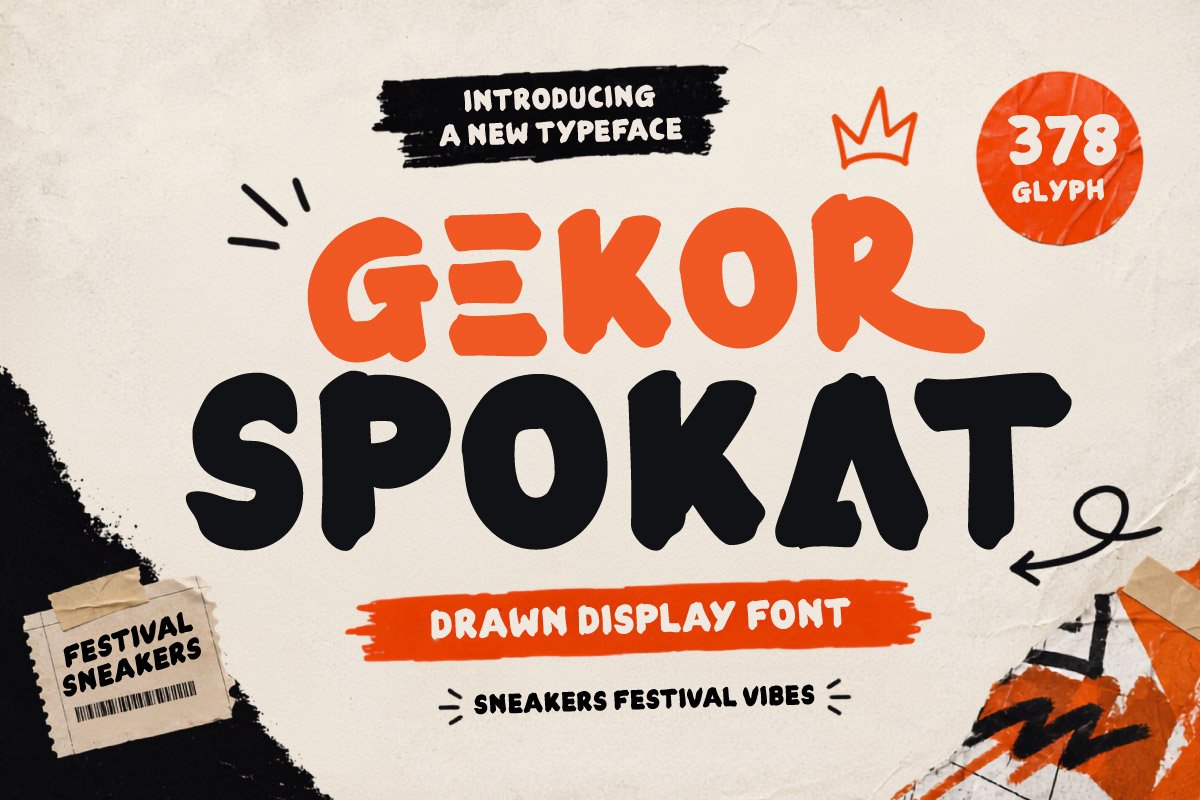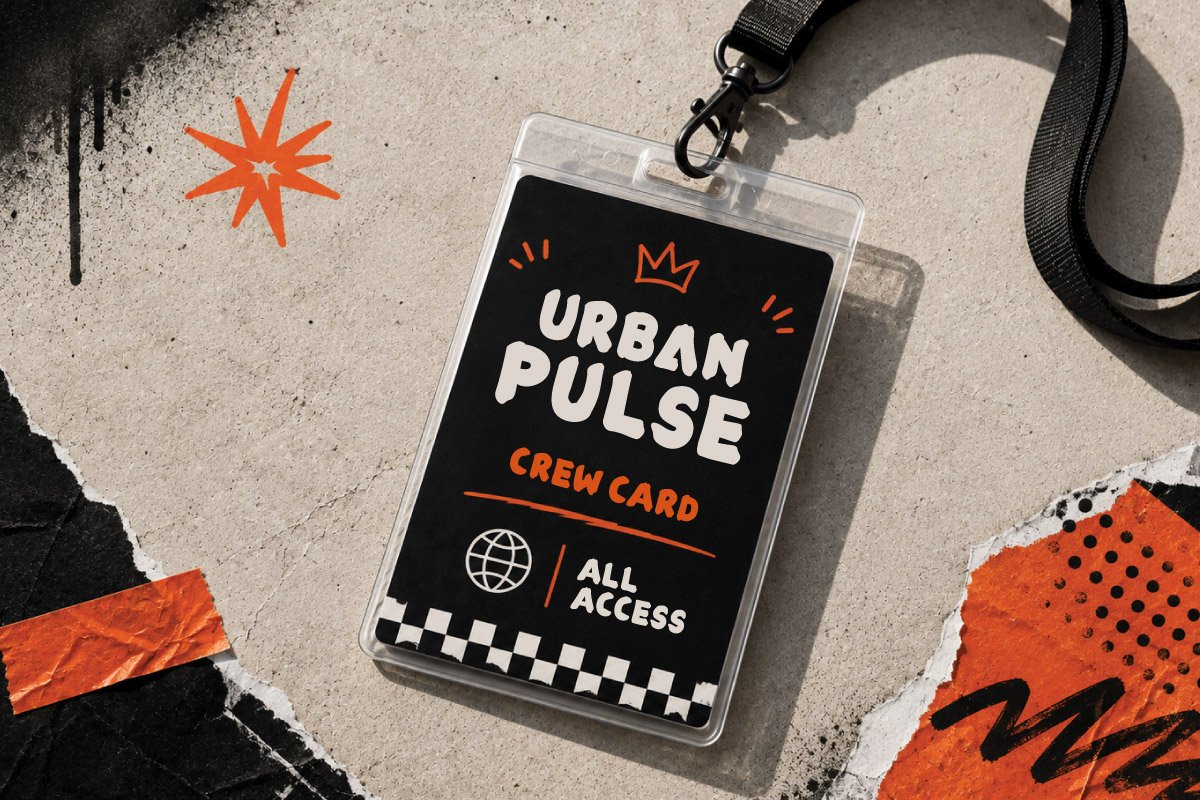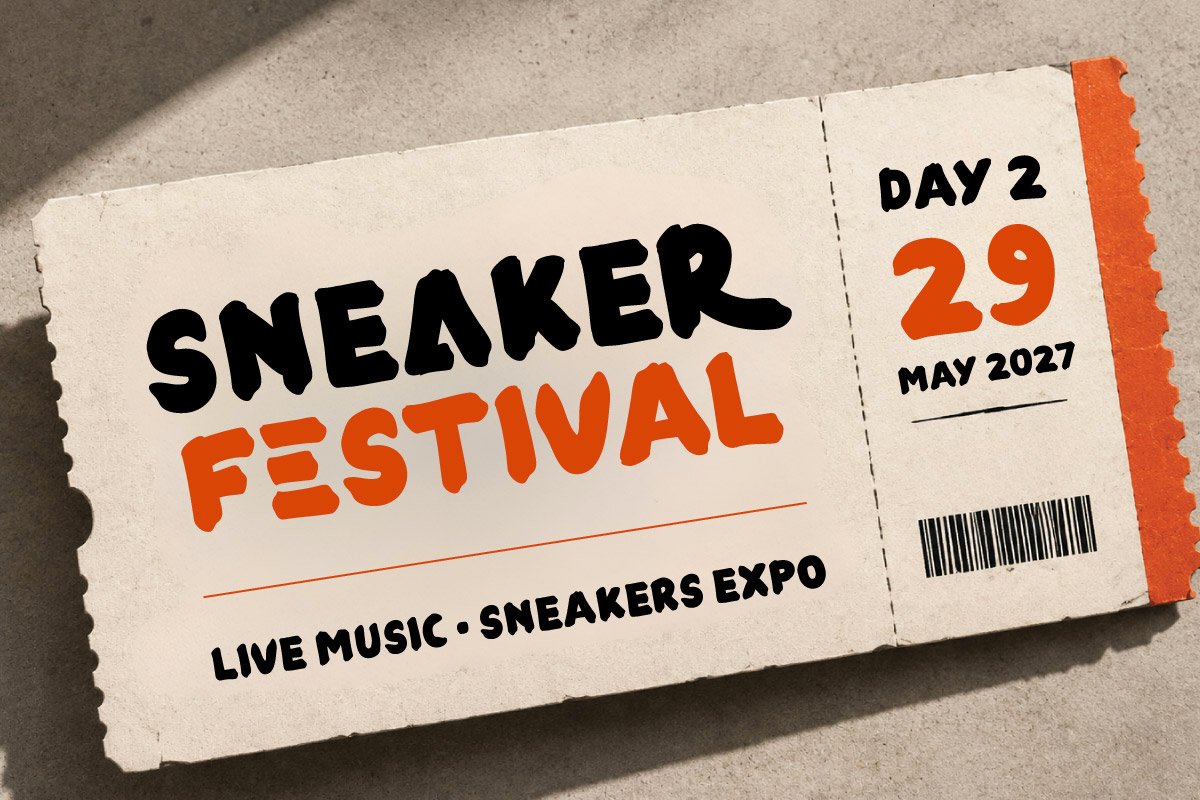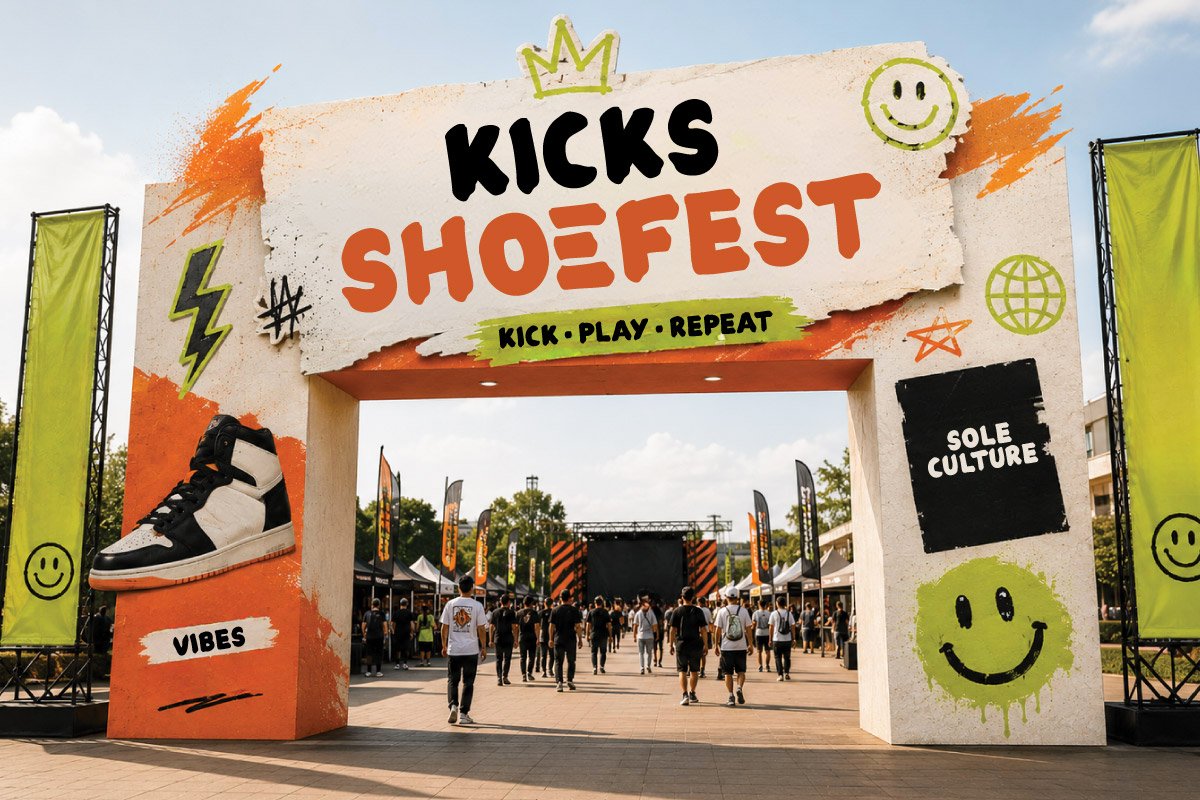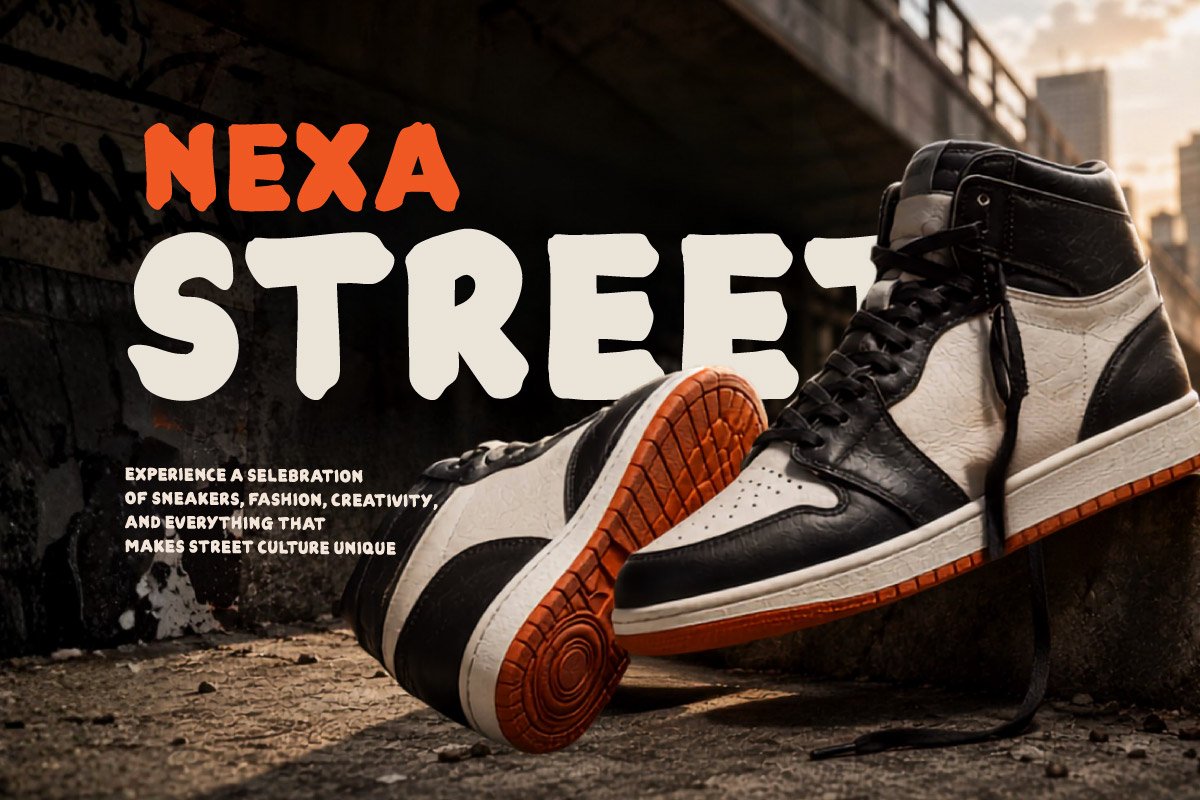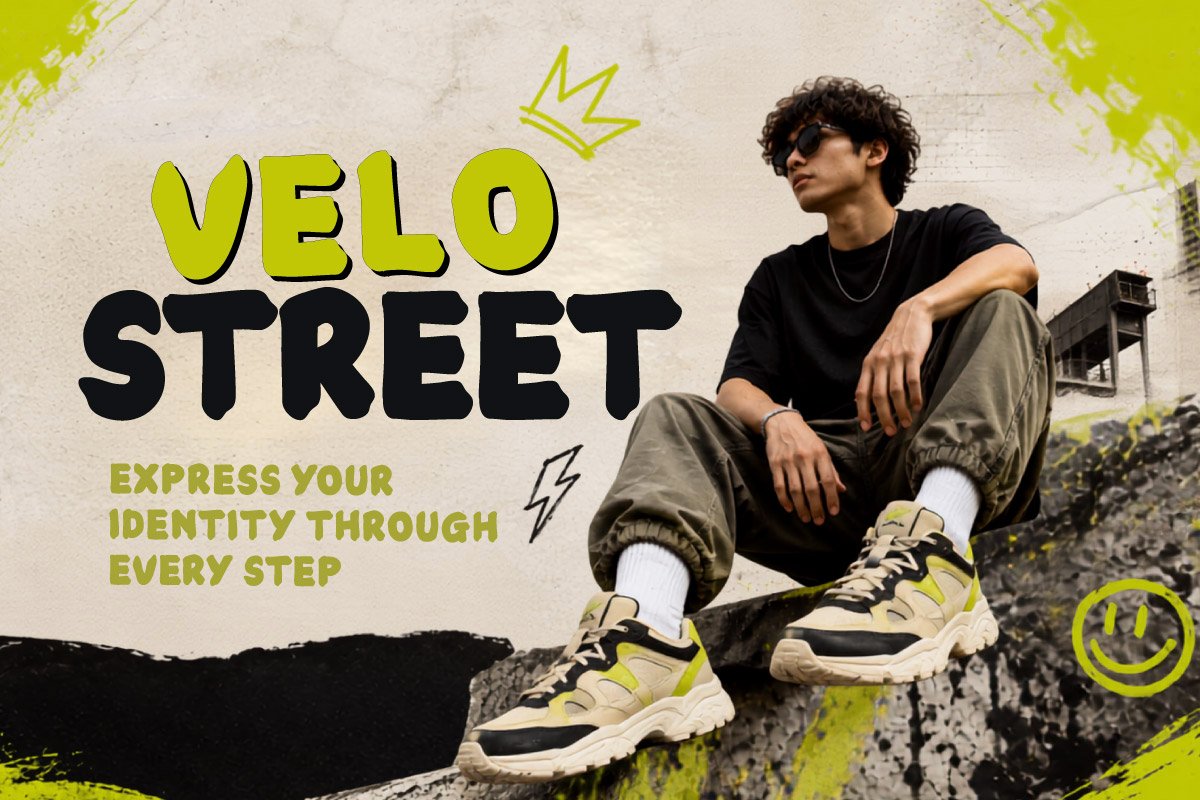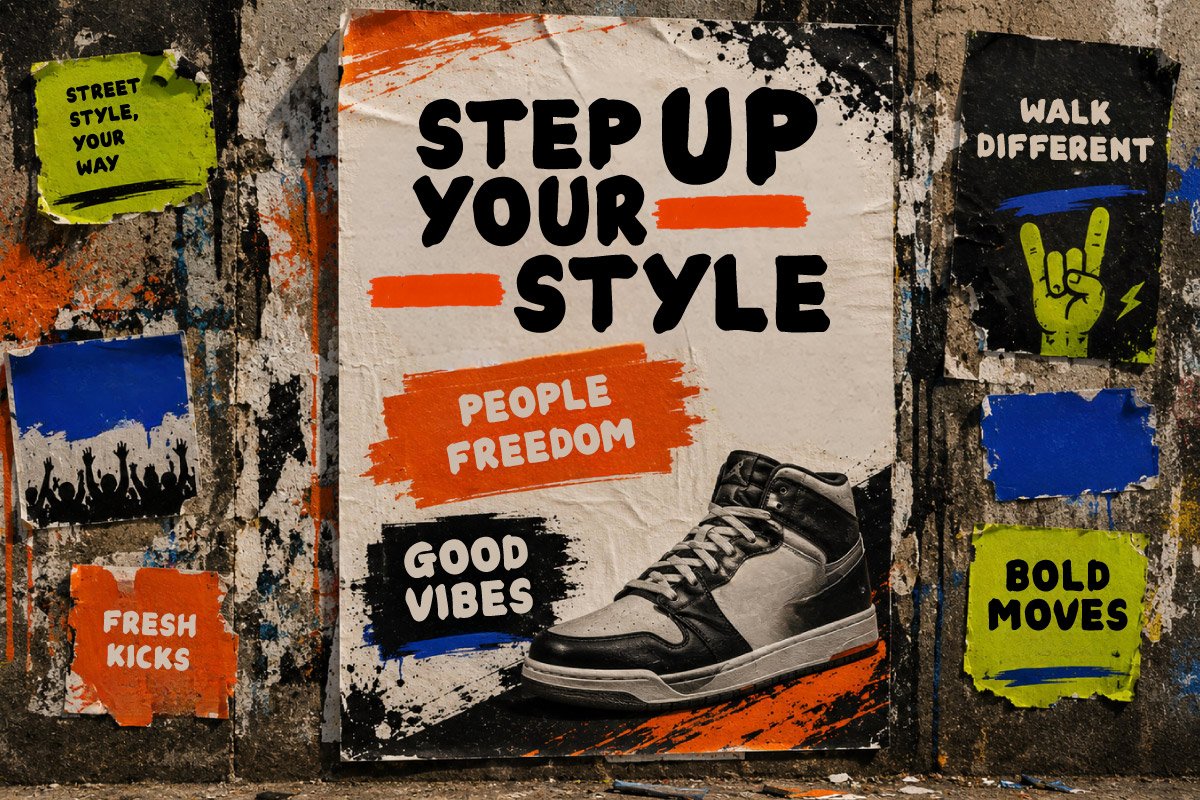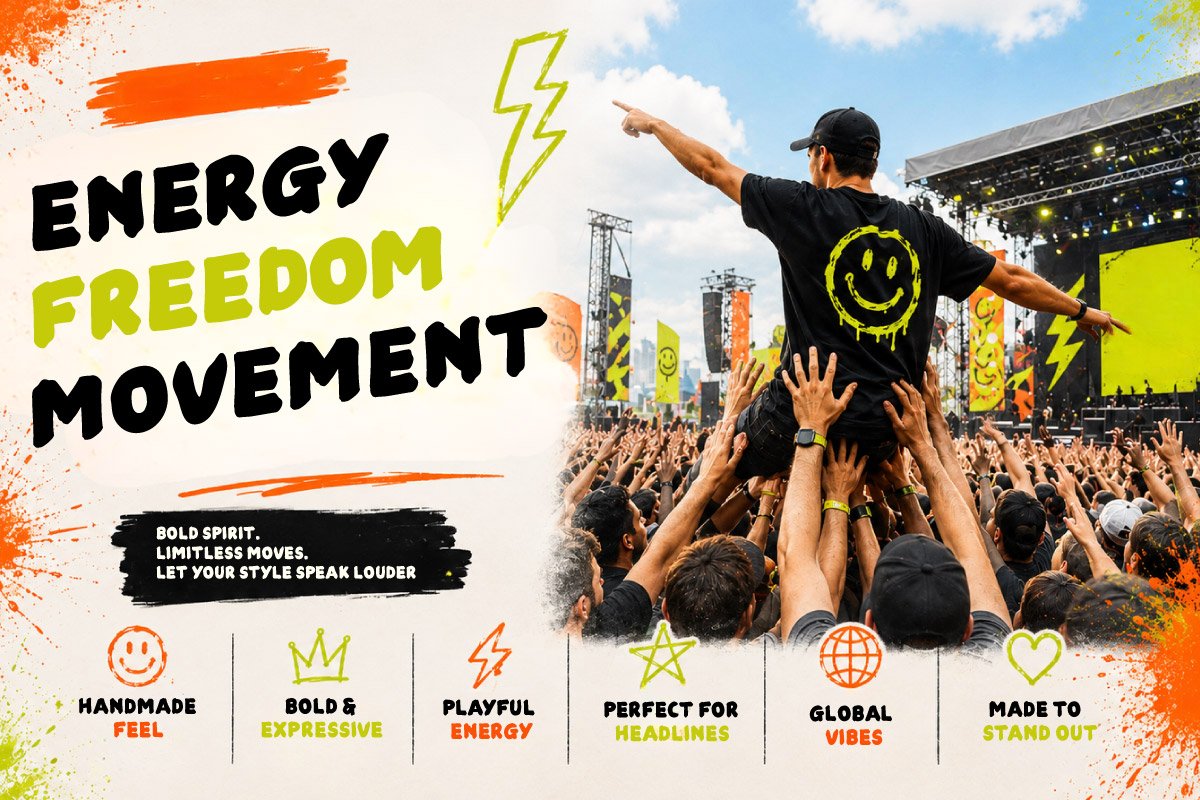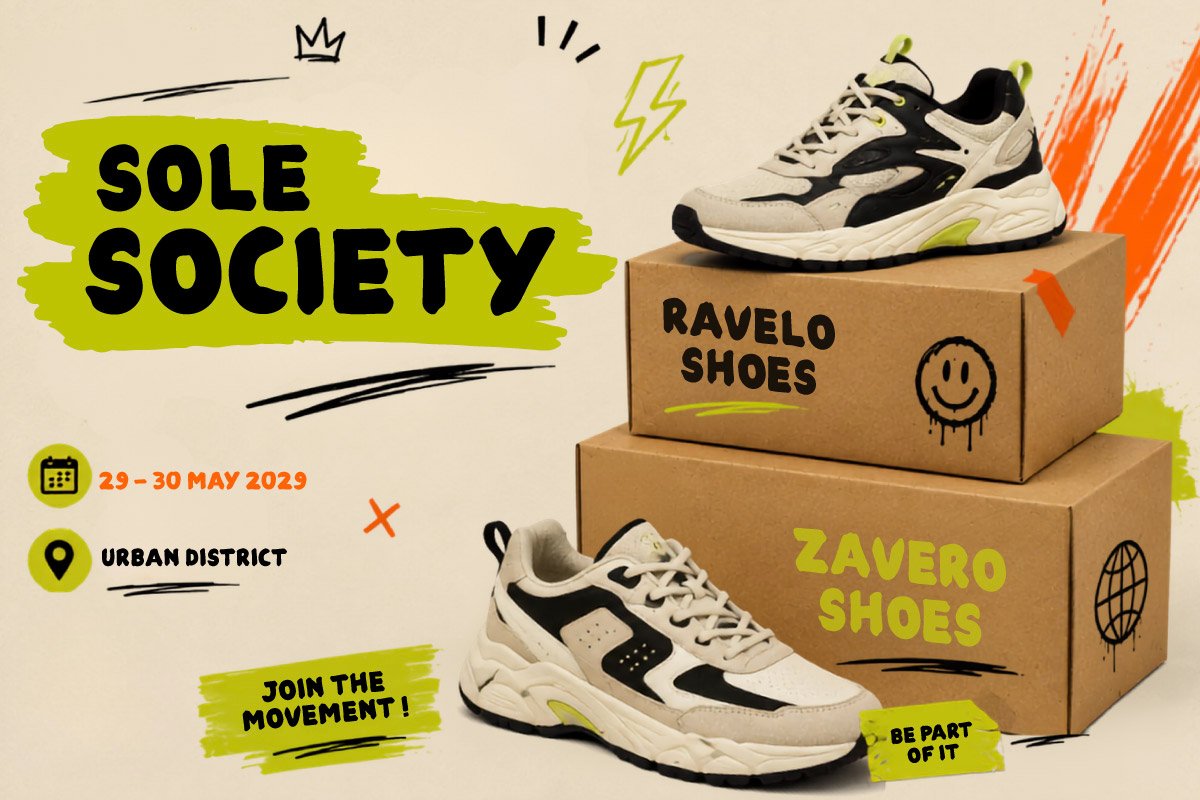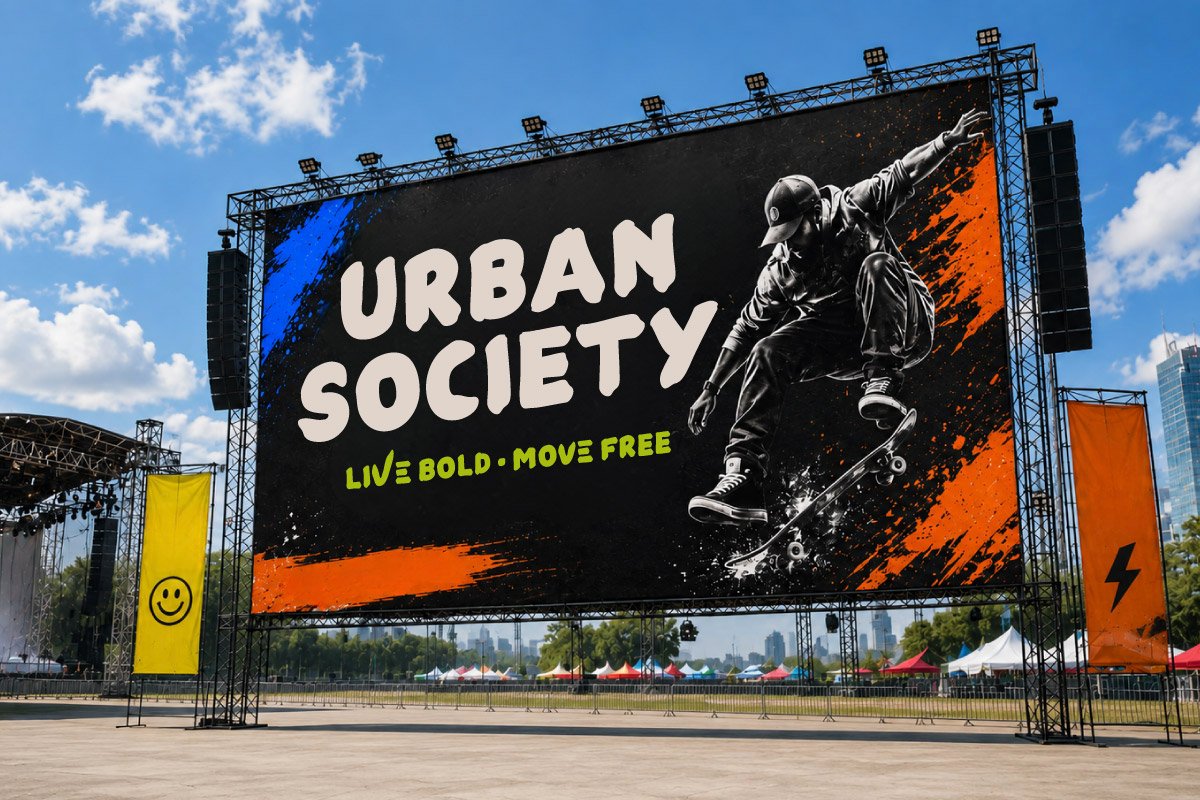
- Gekor Spokat – Brush Display Font
Gekor Spokat is a bold and energetic brush typeface inspired by sneaker culture, streetwear, and the vibrant atmosphere of modern festivals. Its chunky letterforms and expressive brush strokes create a handcrafted, playful, and urban personality that instantly gives headlines a strong visual impact.
Designed for attention-grabbing visuals, Gekor Spokat is perfect for sneaker branding, fashion campaigns, festival posters, event promotions, product advertising, shopping campaigns, and streetwear projects. Its expressive character works especially well for youthful, energetic, rebellious, and contemporary design concepts.